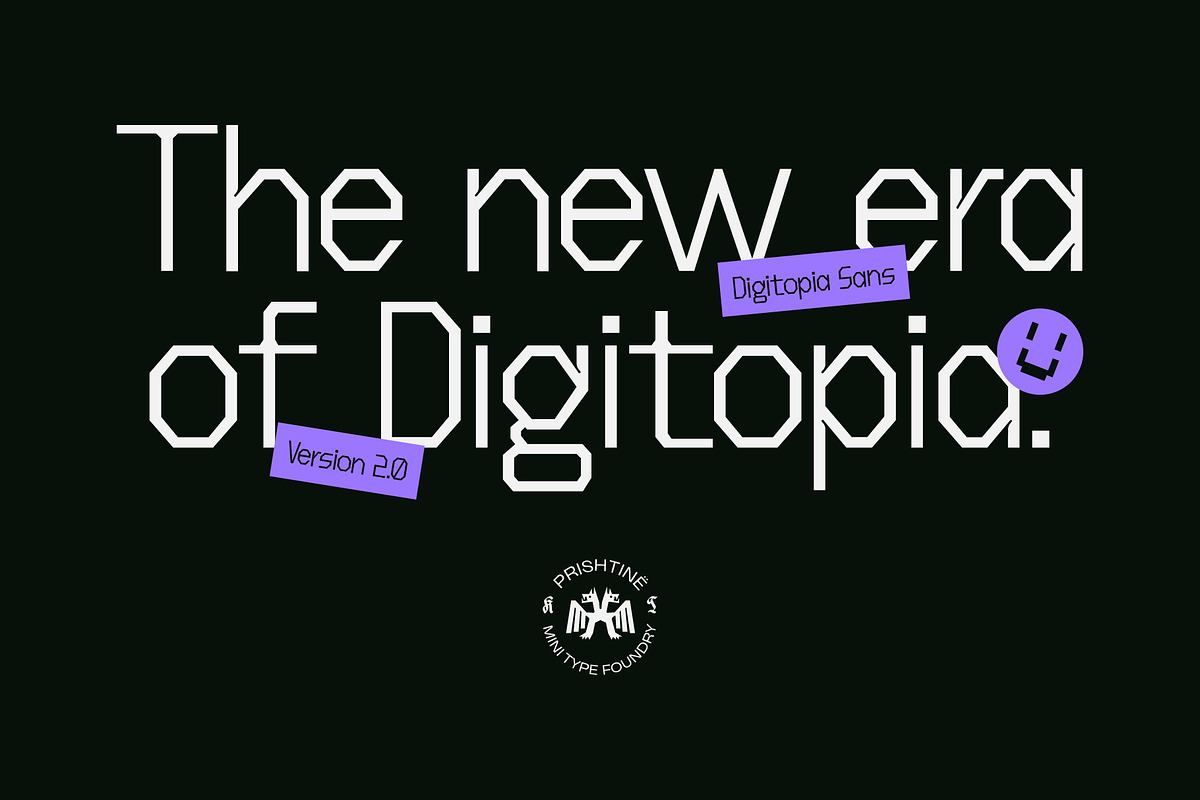
You must purchase this font for commercial use. However, you can download Digitopia 2.0 – Sans Type Free Download for testing purposes. Digitopia 2.0 is a sleek, futuristic sans-serif font designed for digital-forward projects that demand a clean, modern edge. Perfect for tech branding, UI/UX interfaces, esports, apps, sci-fi titles, and innovative product packaging, this typeface brings a bold, minimalistic feel with a hint of cyber aesthetics.
Digitopia 2.0 features sharp geometry, tight spacing, and contemporary character shapes that ensure high readability while maintaining strong visual impact. Whether you're creating a tech startup identity or crafting dynamic headlines for a digital campaign, Digitopia 2.0 – Sans Type Free Download lets you test its cutting-edge style before using it in commercial work.